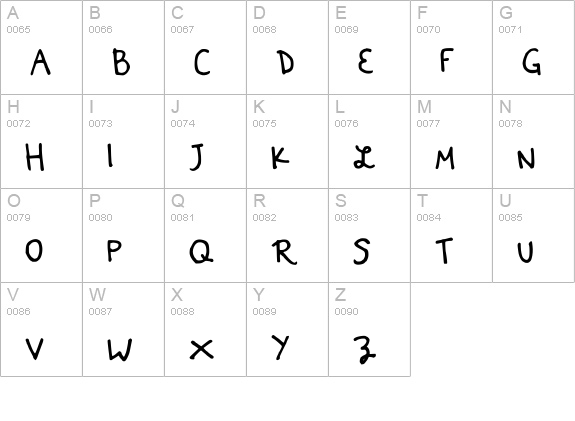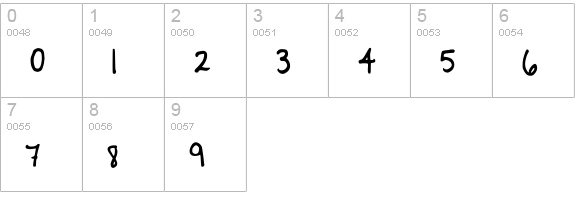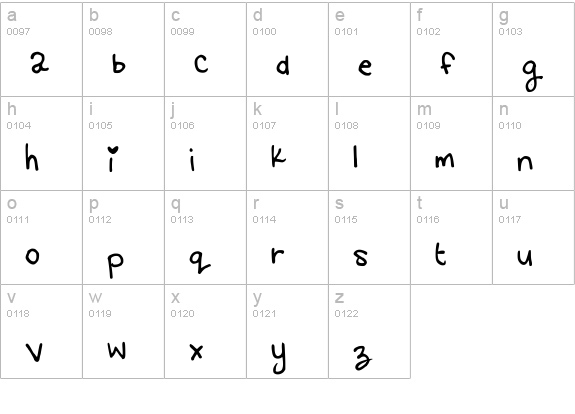
Kittyspoon Font Details
Introducing Kittyspoon font - a whimsical and playful typeface that is perfect for adding a touch of charm and creativity to your design projects. With its unique combination of rounded edges and elegant curves, Kittyspoon exudes a sense of friendliness and warmth, making it an ideal choice for a wide range of applications. Whether you are working on branding materials, invitations, posters, or any other design project, Kittyspoon font is sure to make a statement. Its versatility allows it to be used in both playful and elegant contexts, adding a touch of personality to your work. Best of all, Kittyspoon font is available for free download at FontsMarket.com. So why wait? Add a touch of whimsy to your designs with Kittyspoon today!